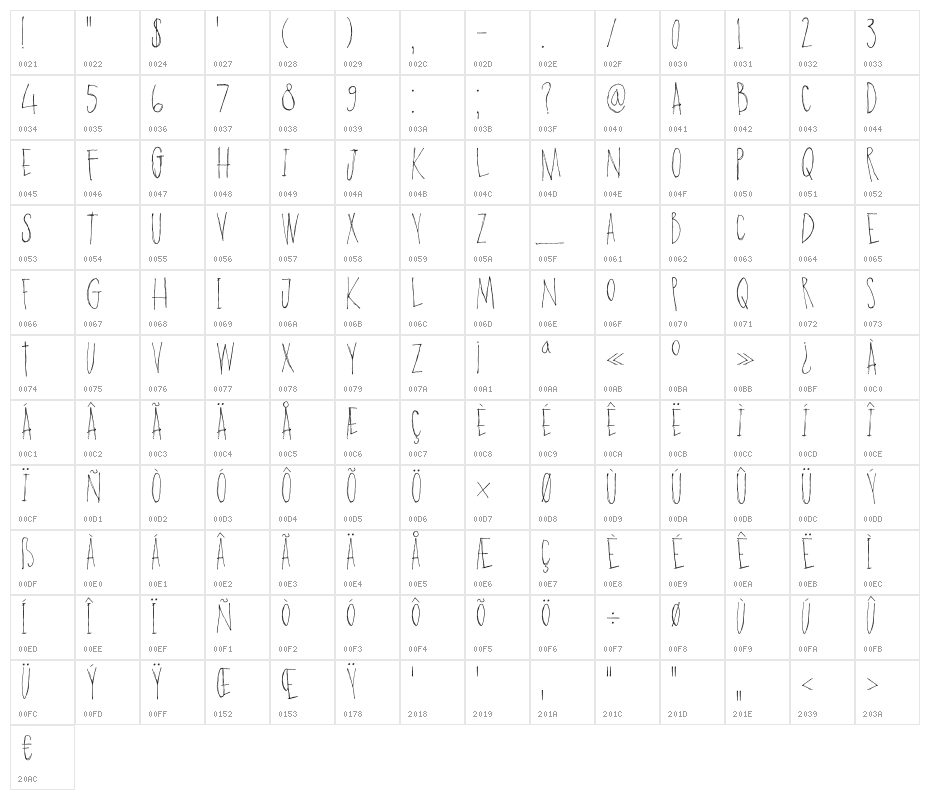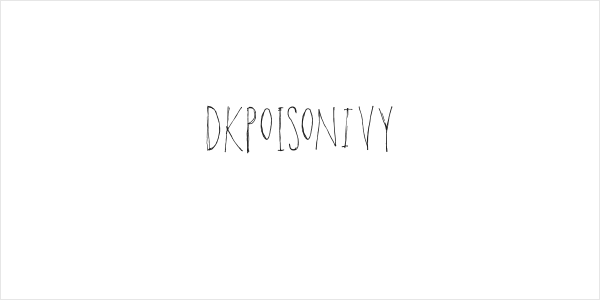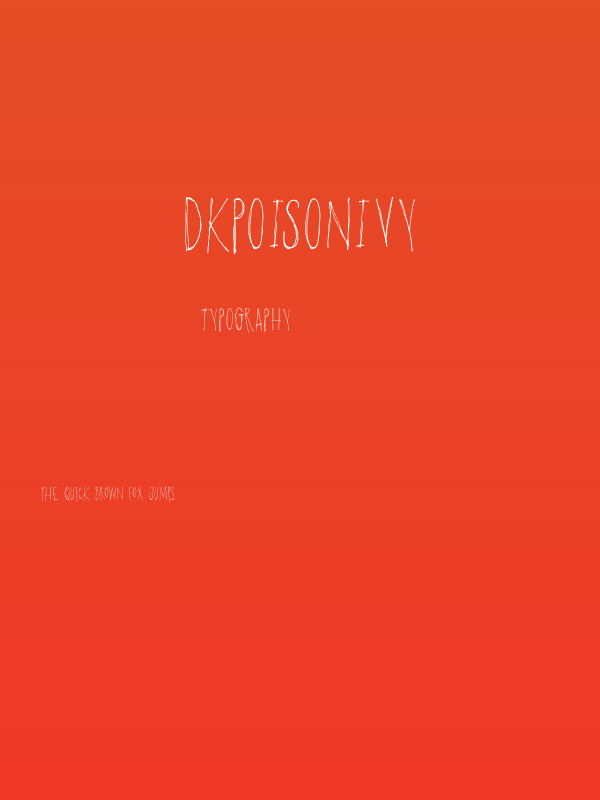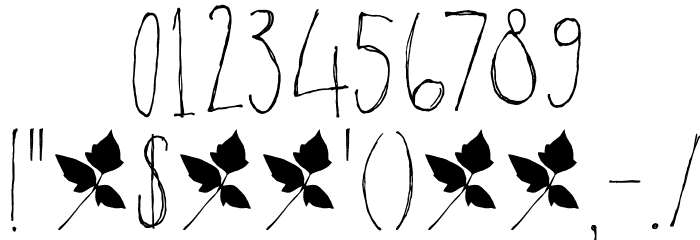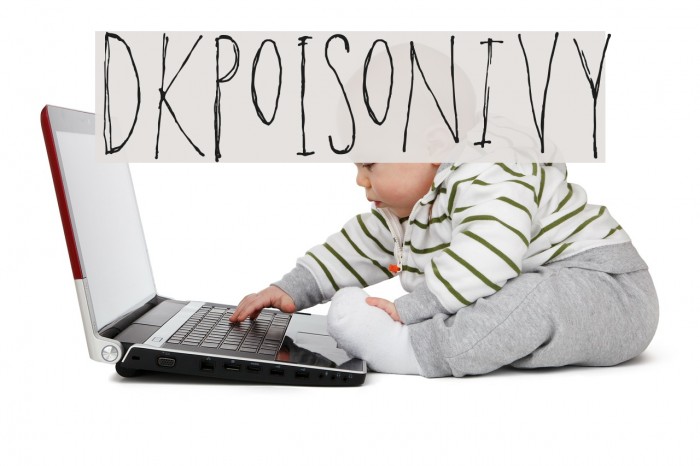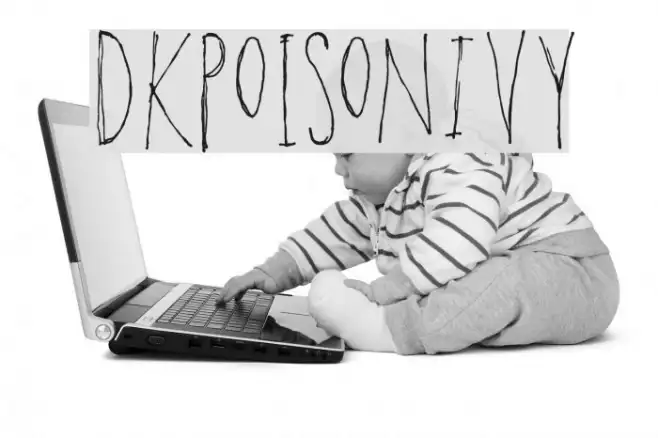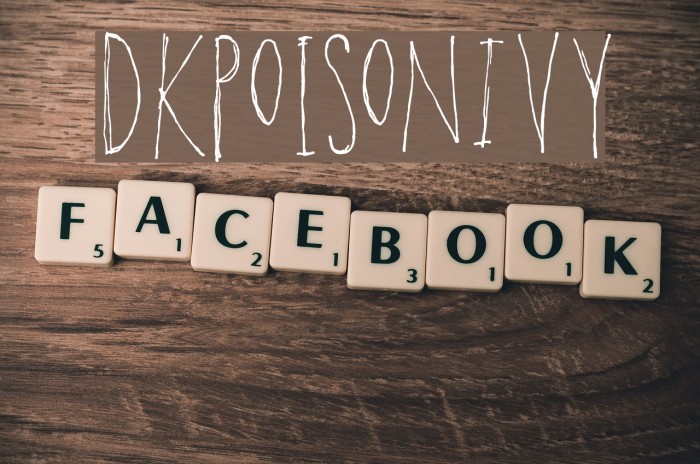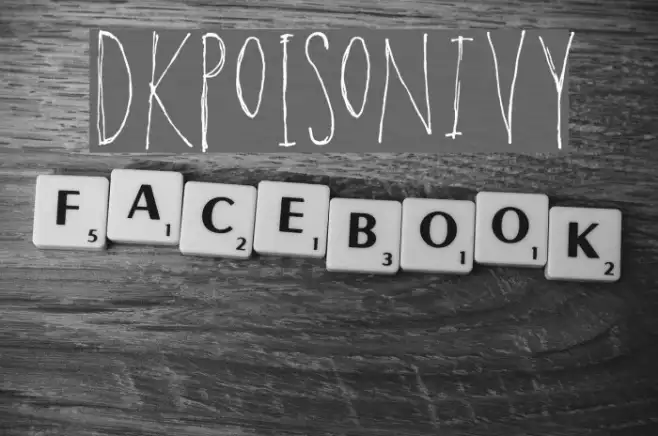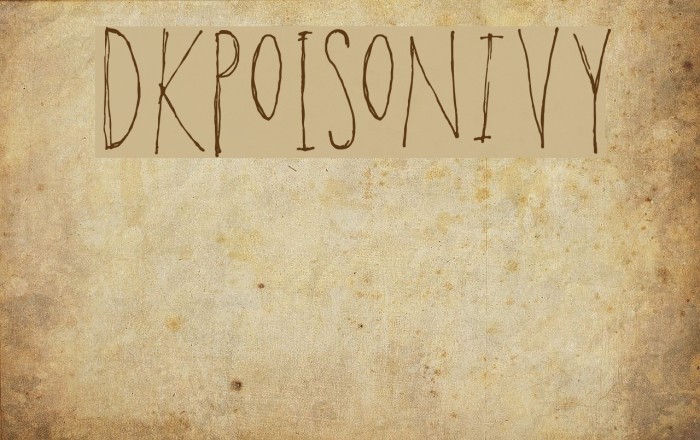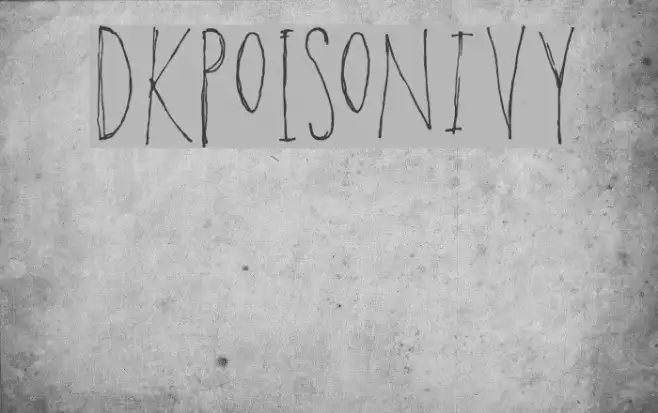
DKPoisonIvy Font
DKPoisonIvy Description
This font features a unique, hand-drawn style with a whimsical and organic feel. The letters are tall and narrow, with irregular strokes that give it a natural, sketch-like appearance. The uppercase and lowercase characters maintain a consistent height, while the numbers and special characters integrate seamlessly with the overall design. The font's playful and slightly chaotic nature makes it stand out, with each character appearing as if it were drawn with a fine-tipped pen. The leaf symbols add an extra touch of nature-inspired charm, enhancing its decorative appeal.
| Use Case | Logos, Posters, Invitations |
| Proposed Projects | Ideal for eco-friendly branding, children's book illustrations, nature-themed posters, or creative invitations. |